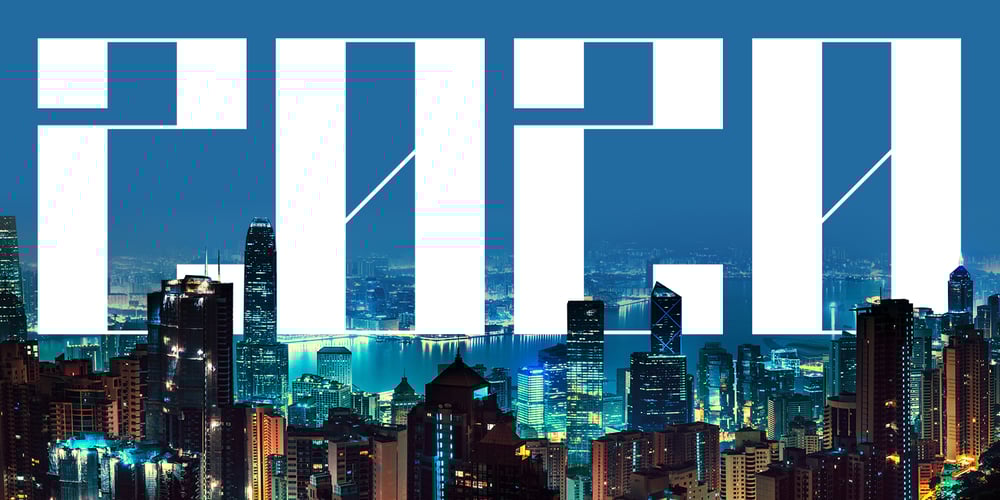
Big Citee
Big Citee font
Big Citee Font Family was designed by Tim Rex and published by Rex Face. Big Citee contains 4 styles and family package options. Big Citee is a robust, industrial looking display font. Its name is linked to the characters’ strong stems looking like a wall of sky scrapers. Big Citee is strong and impactful, making it ideal for headlines and signage.